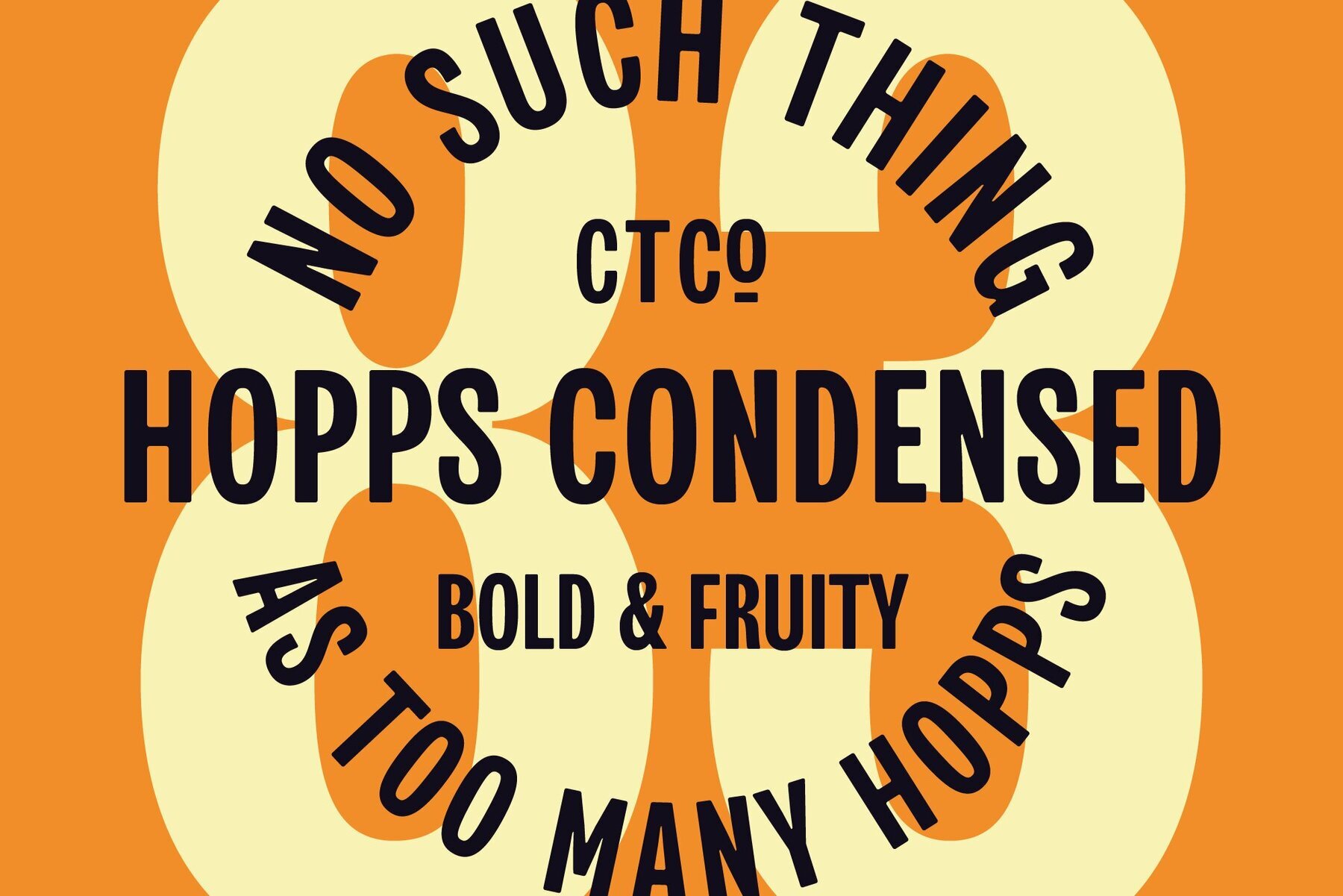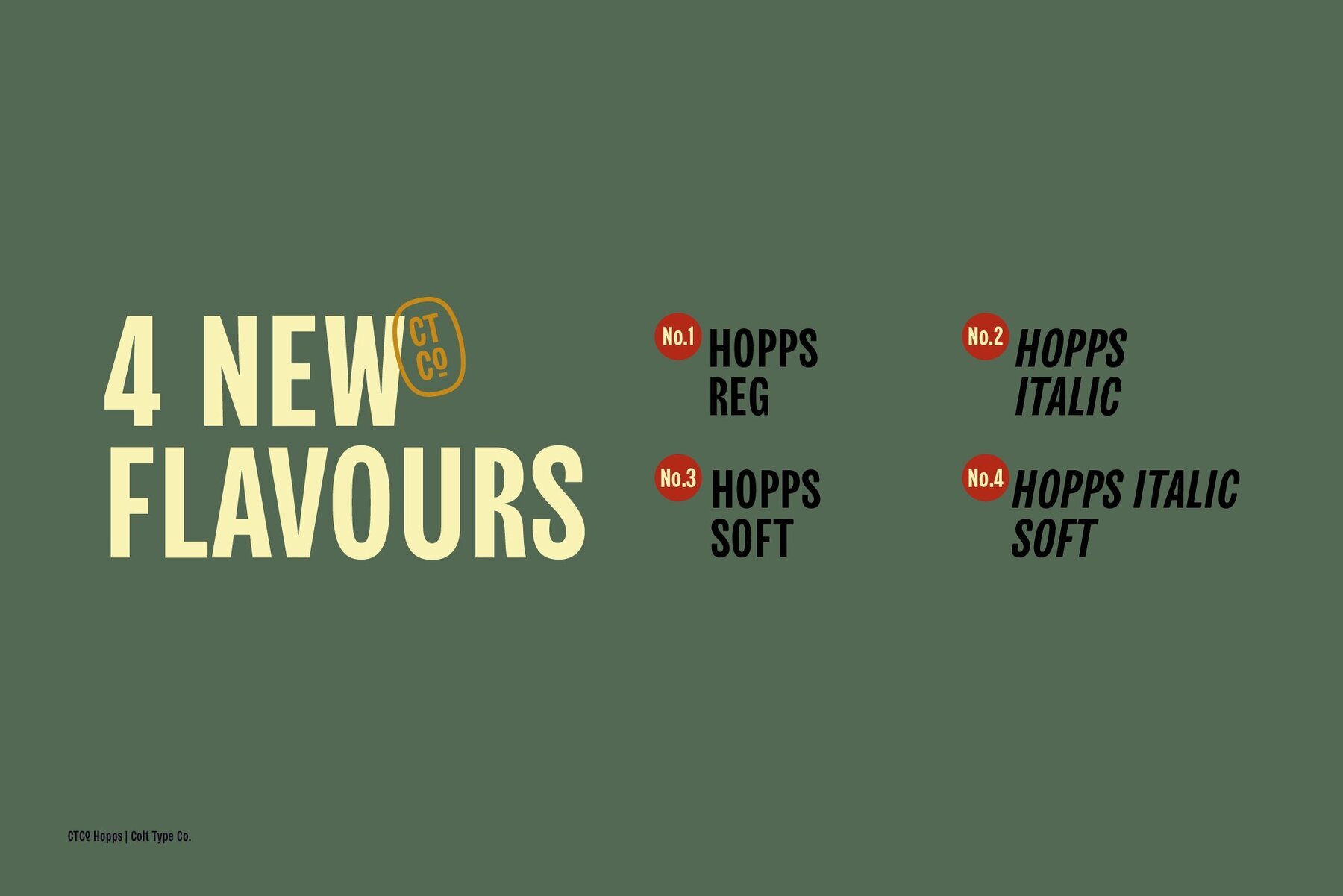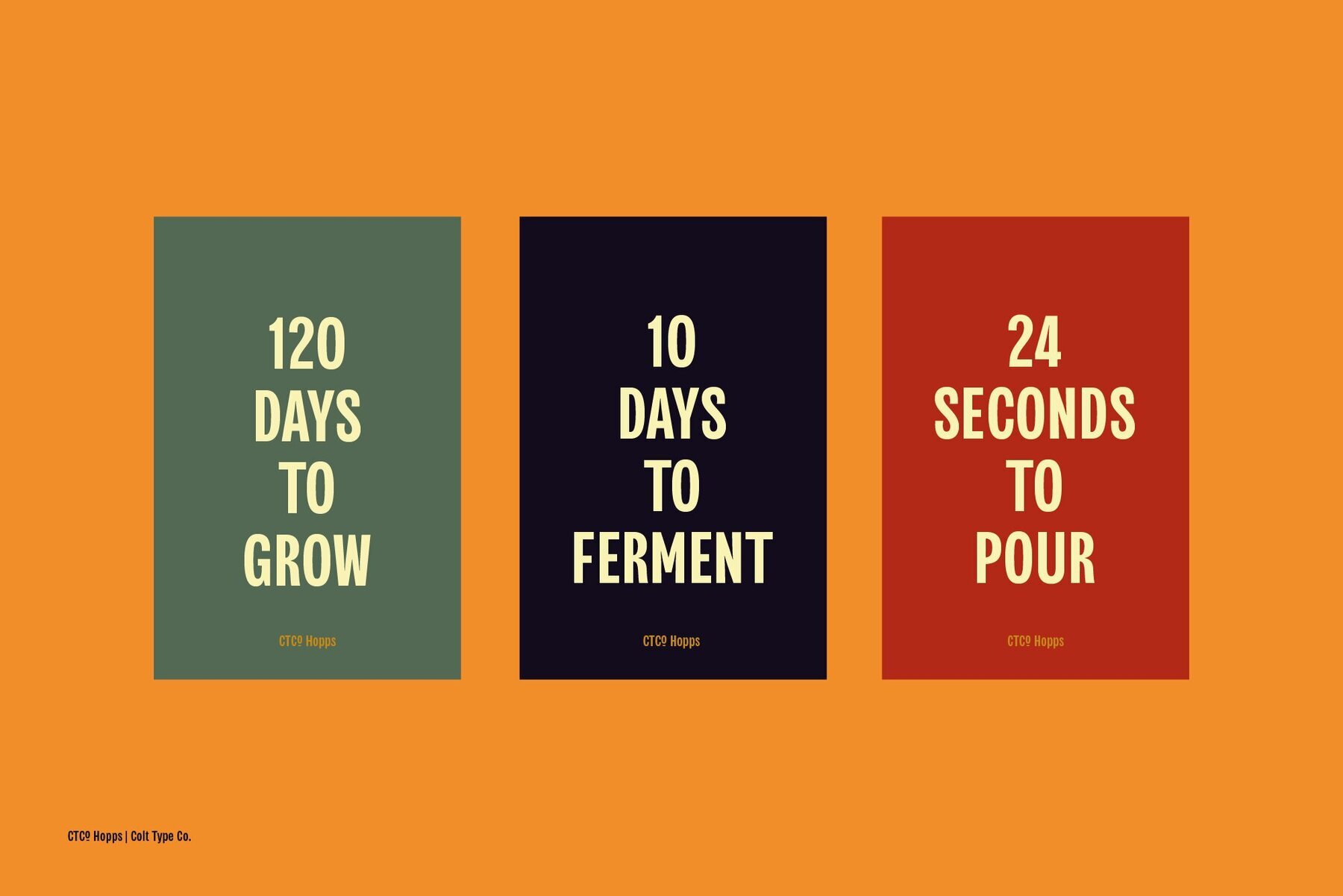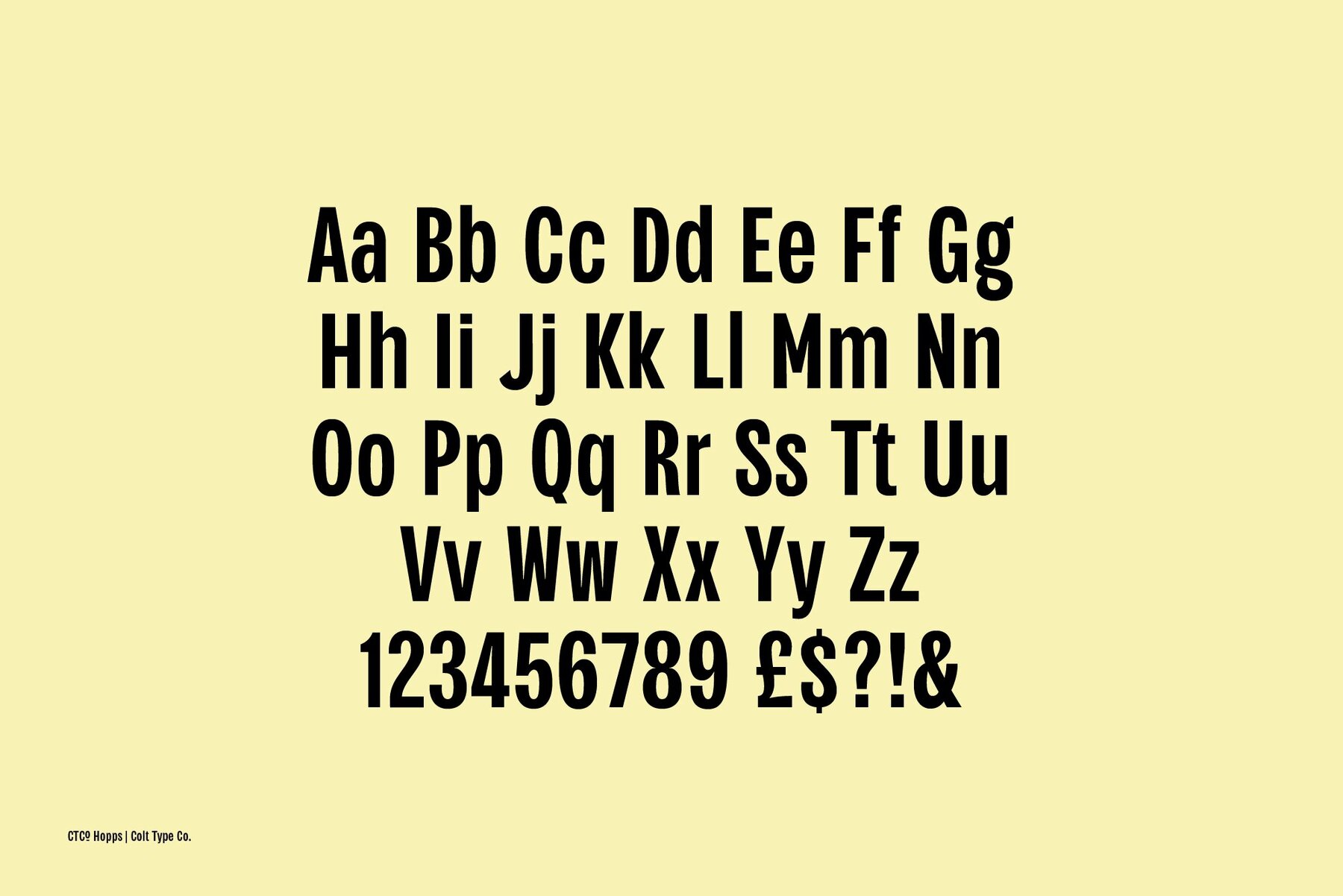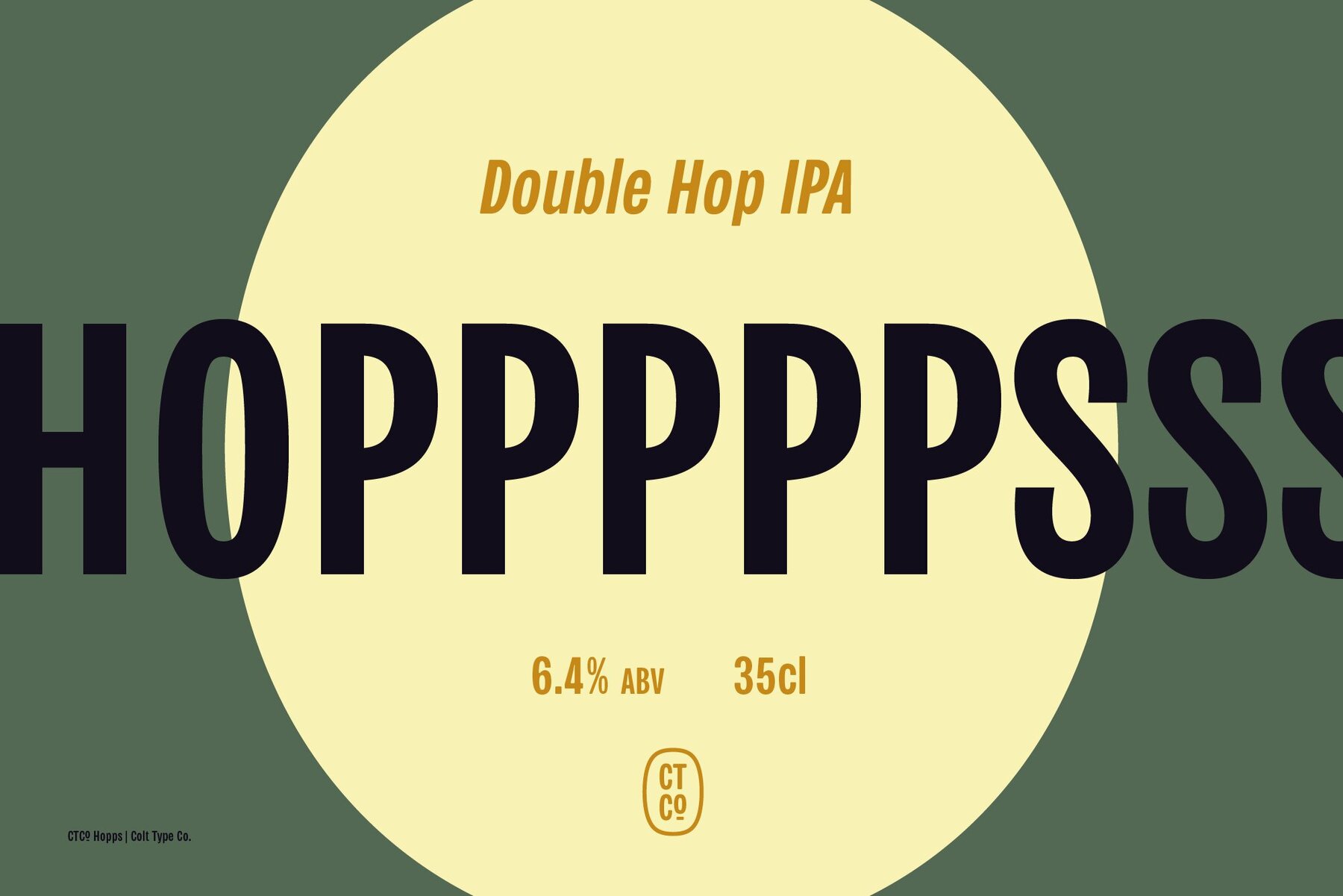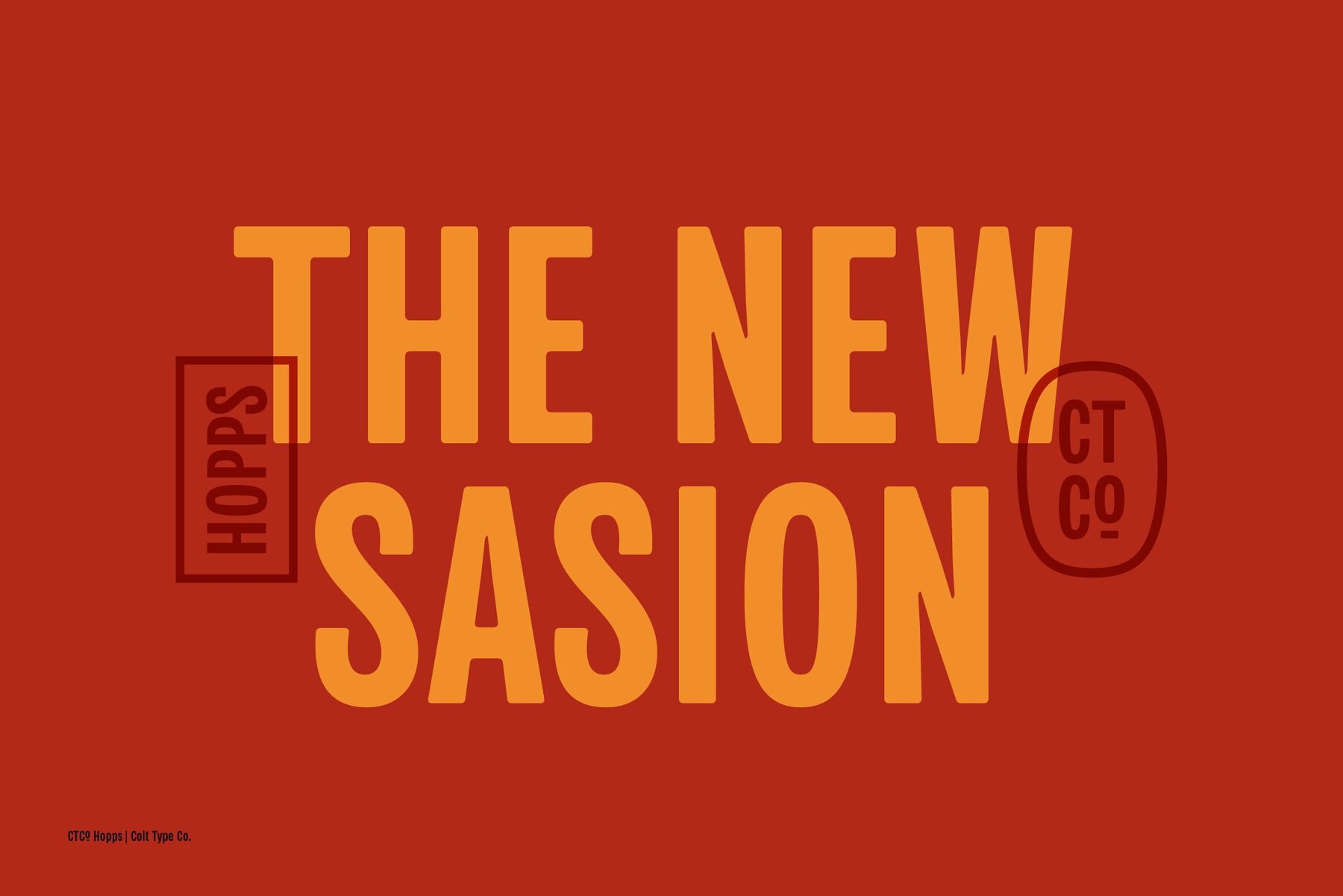
CTCO Hopps Font
CTCo Hopps is a condensed grotesque designed for headlines, posters and logos. Inspired by vintage beer labels, newspaper headlines, and woodcut type. Hopps is the perfect typeface to make a big statement with a classic impact. The vintage utilitarian style, that doesn't fill too much width.Make Hopps your go-to condensed display font. Where there's life, there's Hopps. CTCo Hopps comes in 4 refreshing flavours: